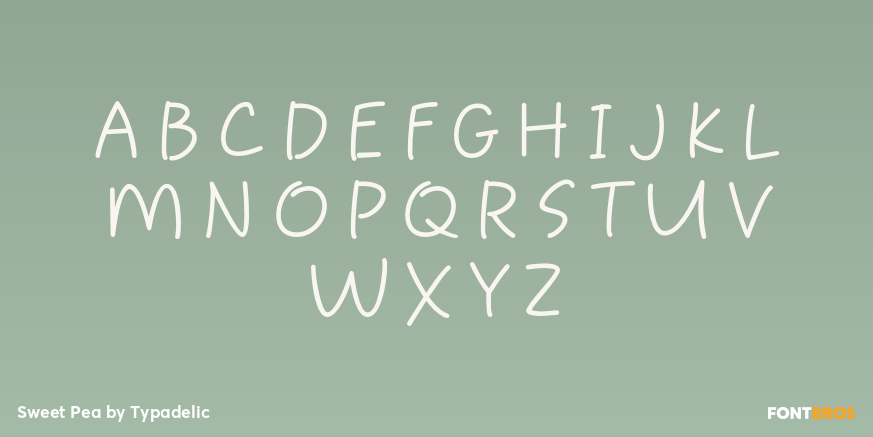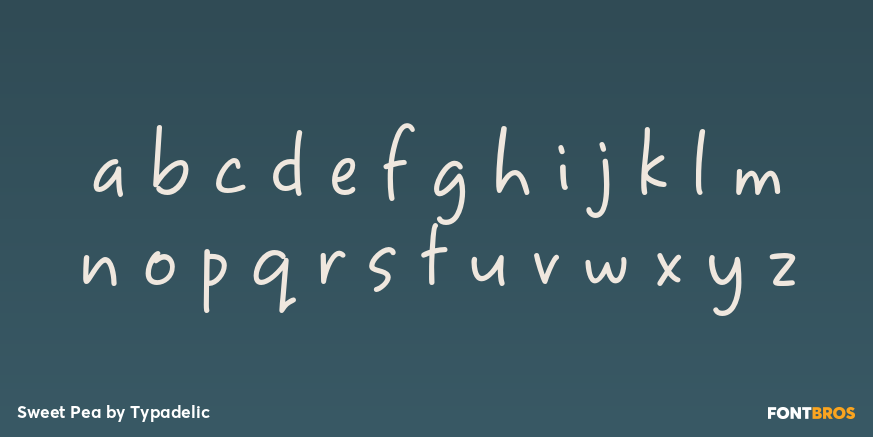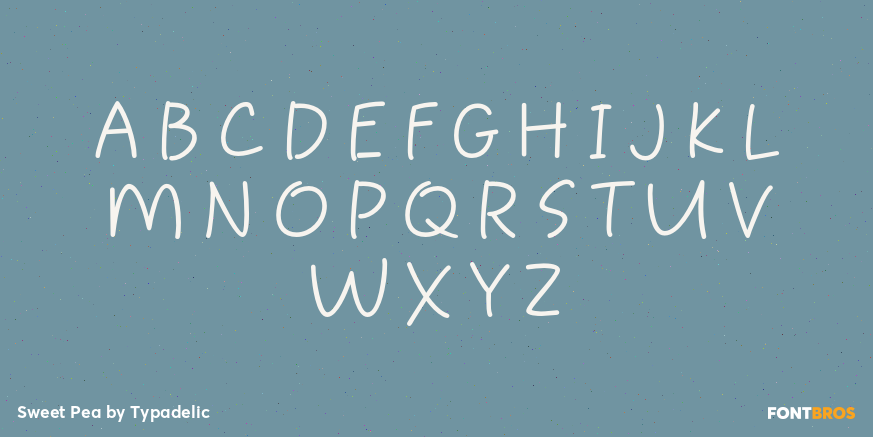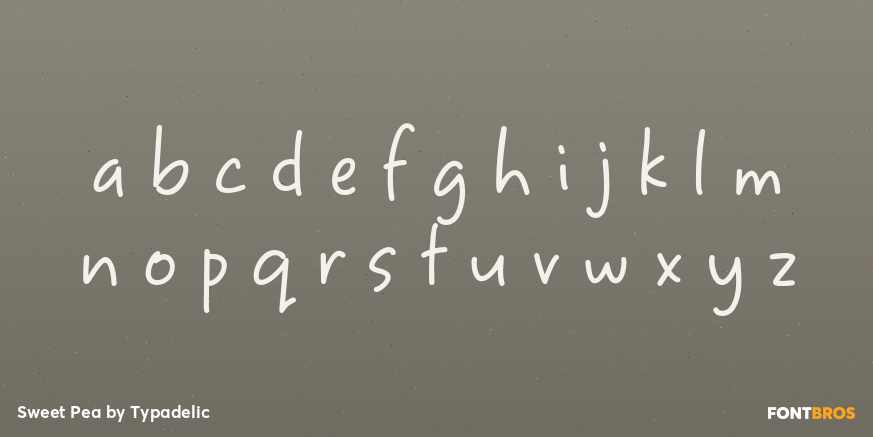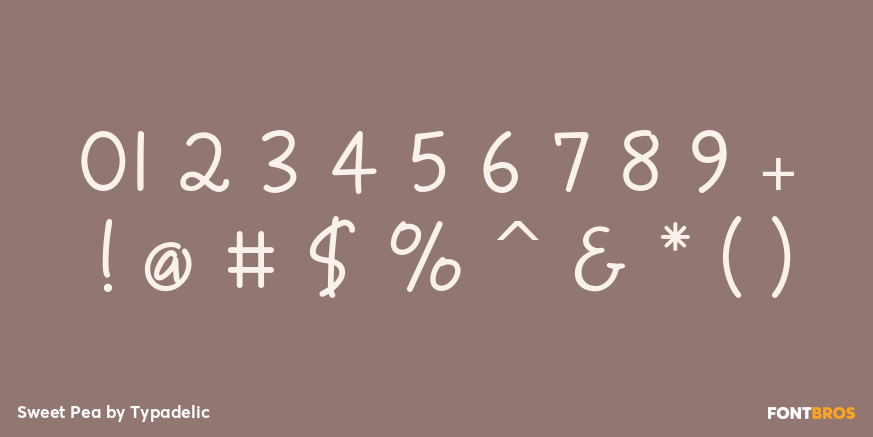
Sweet Pea
Font Family by Typadelic
Desiring to create a scrapbooking font, I based Sweet Pea loosely on my own handwriting. The characters don't sit on the baseline but tend to rise above or below it, giving a casual, handwritten appearance.